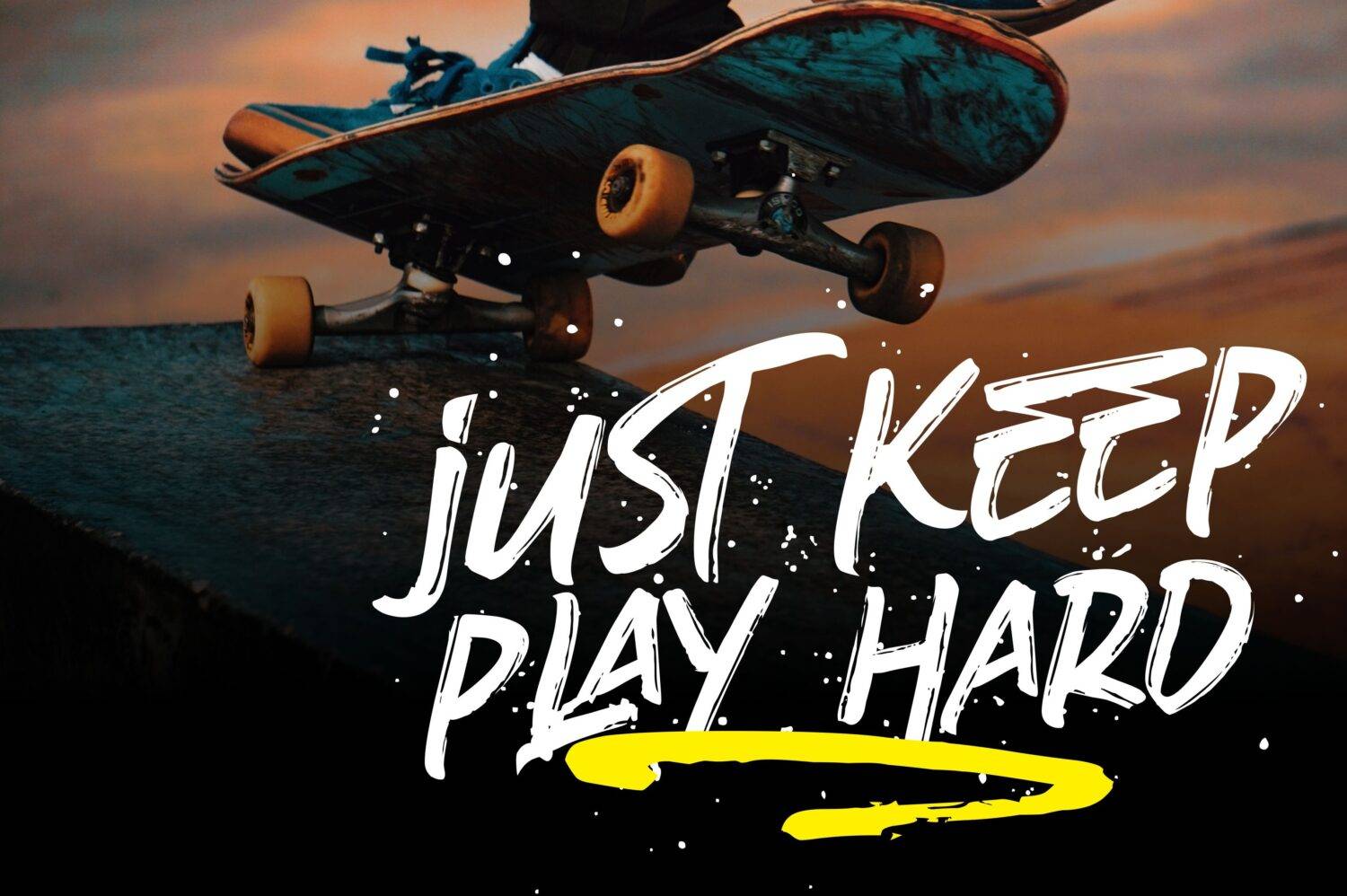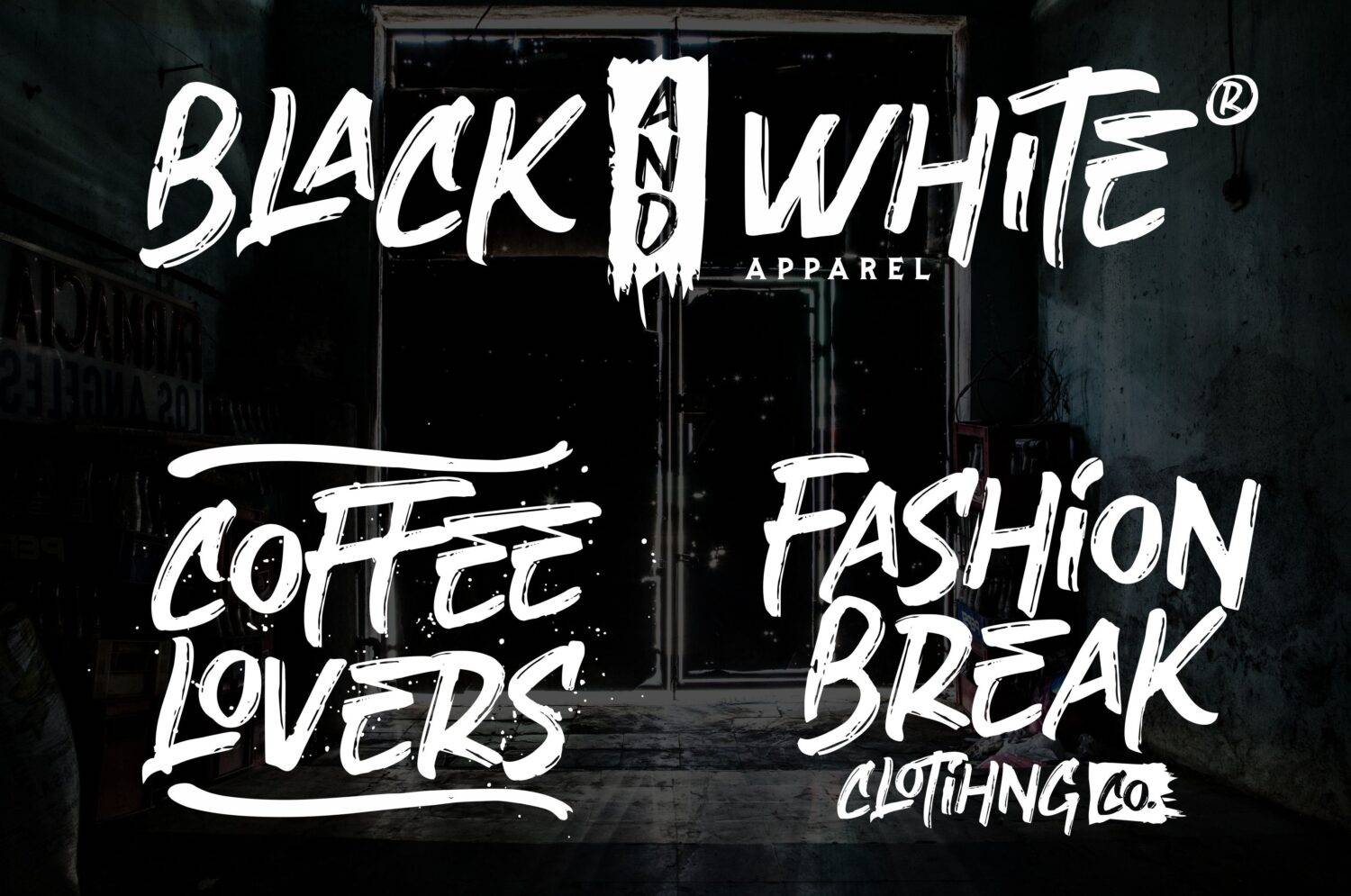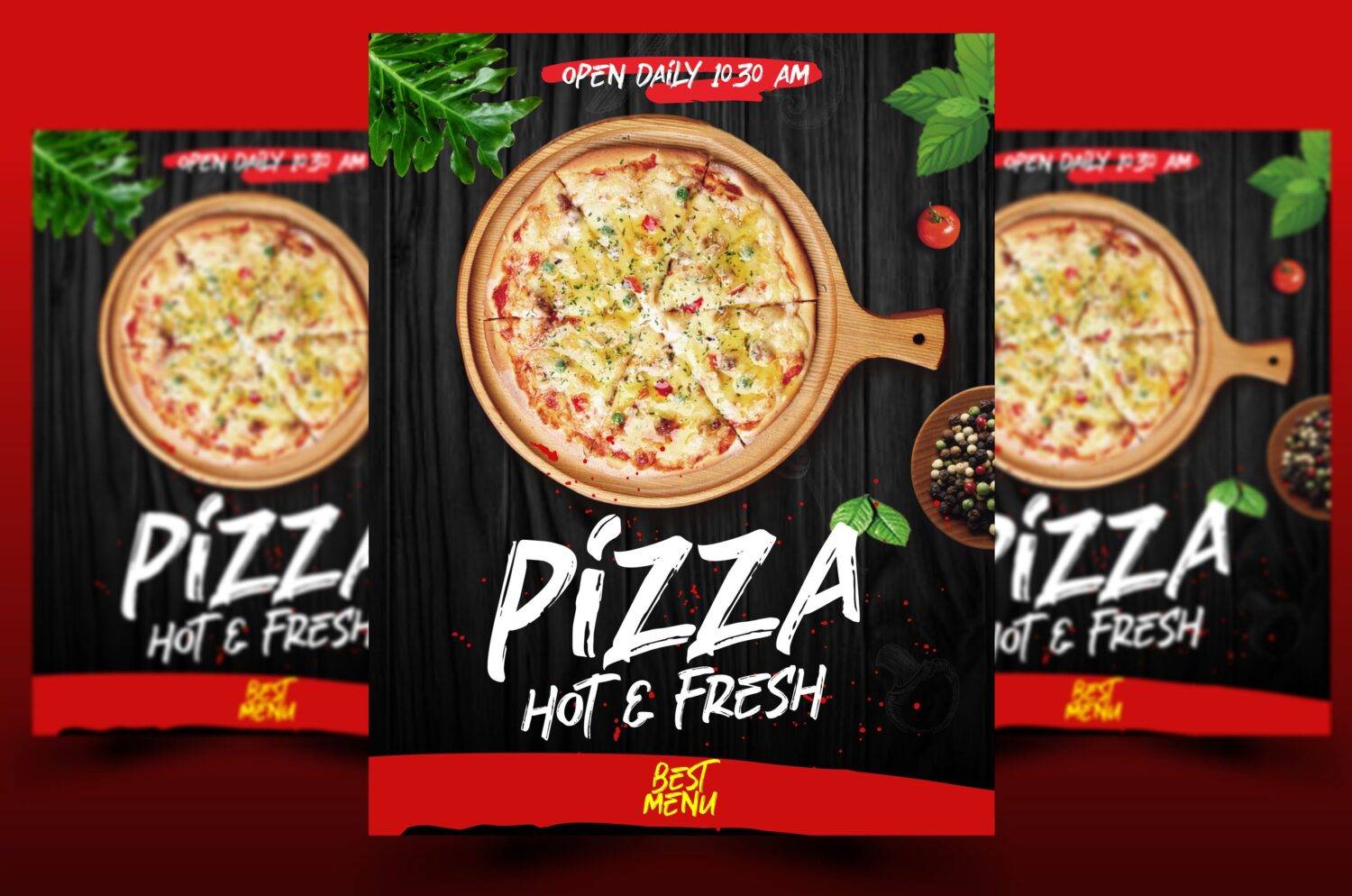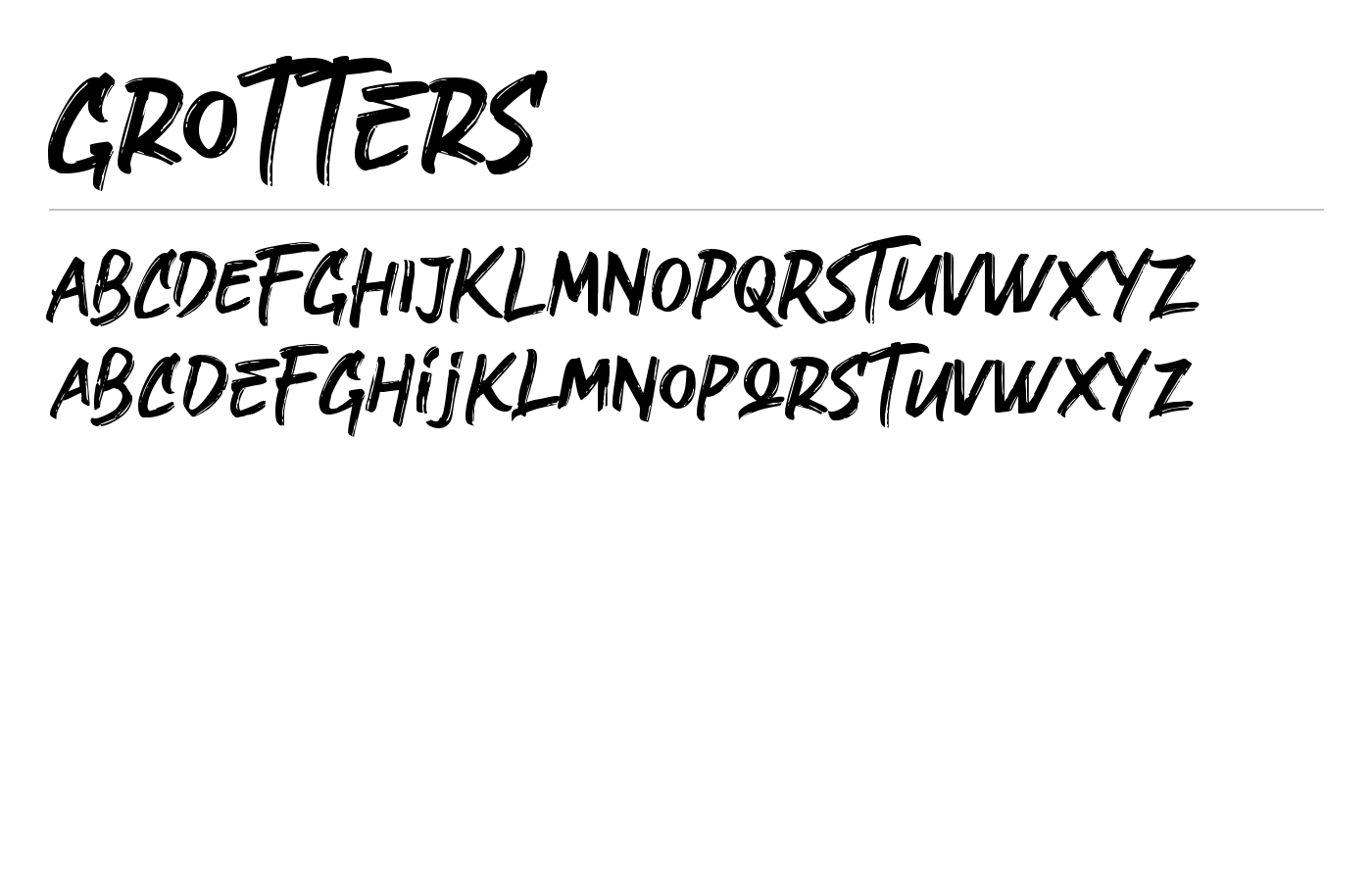
Grotters is a bold, expressive handwritten sans serif font with energetic brushstroke textures that give it a lively and dynamic feel. Its irregular, casual letterforms convey creativity and personality, making it perfect for eye-catching headlines, branding, and projects that want to evoke a sense of spontaneity and artistic flair. This font works especially well for modern, informal designs seeking a hand-crafted, authentic look.
Grotters Font
About Grotters Font